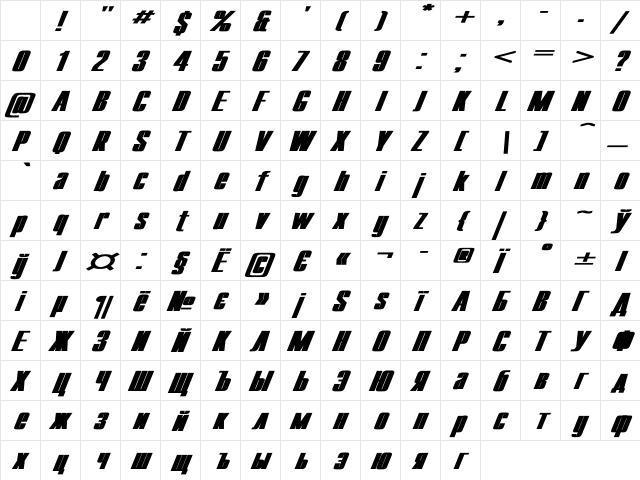
Complete Compact Ex Bold Italic glyph index. Displaying only characters natively supported by Compact Ex Bold Italic font.
Compact Ex is a composed and adaptable typeface that performs quietly and consistently across a wide range of design contexts. The slanted form adds forward momentum and visual energy. Its bold stroke weight gives it real presence on the page. Its narrow stance lets it pack a punch even in space-constrained designs.